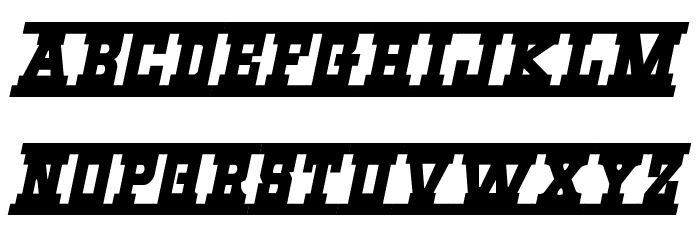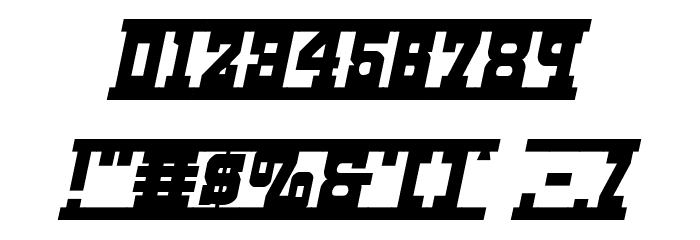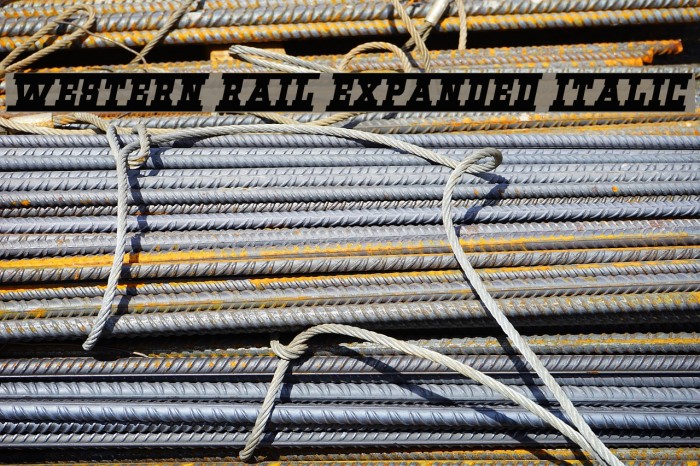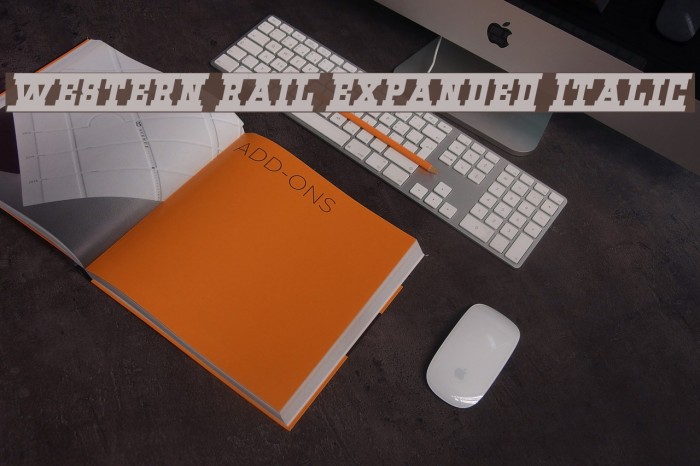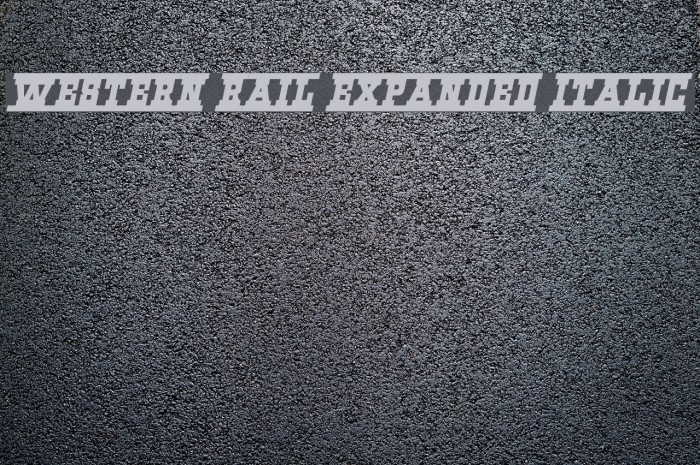
Western Rail Expanded Italic Font
This font features a bold, expanded style with a distinct Western flair, characterized by its sharp, angular serifs and italicized slant. The letters are heavily stylized, with a strong emphasis on geometric shapes and a unique cut-out effect that adds depth and dimension. The uppercase and lowercase letters maintain a consistent design, while the numbers and special characters complement the overall aesthetic. The font's expanded width and bold weight make it highly visible and impactful, ideal for creating a strong visual presence.
Bold, expanded Western-style font with angular serifs and italic slant.
- Proposed Projects: Ideal for Western-themed posters, vintage advertisements, and bold signage.
- Overall Style: Vintage